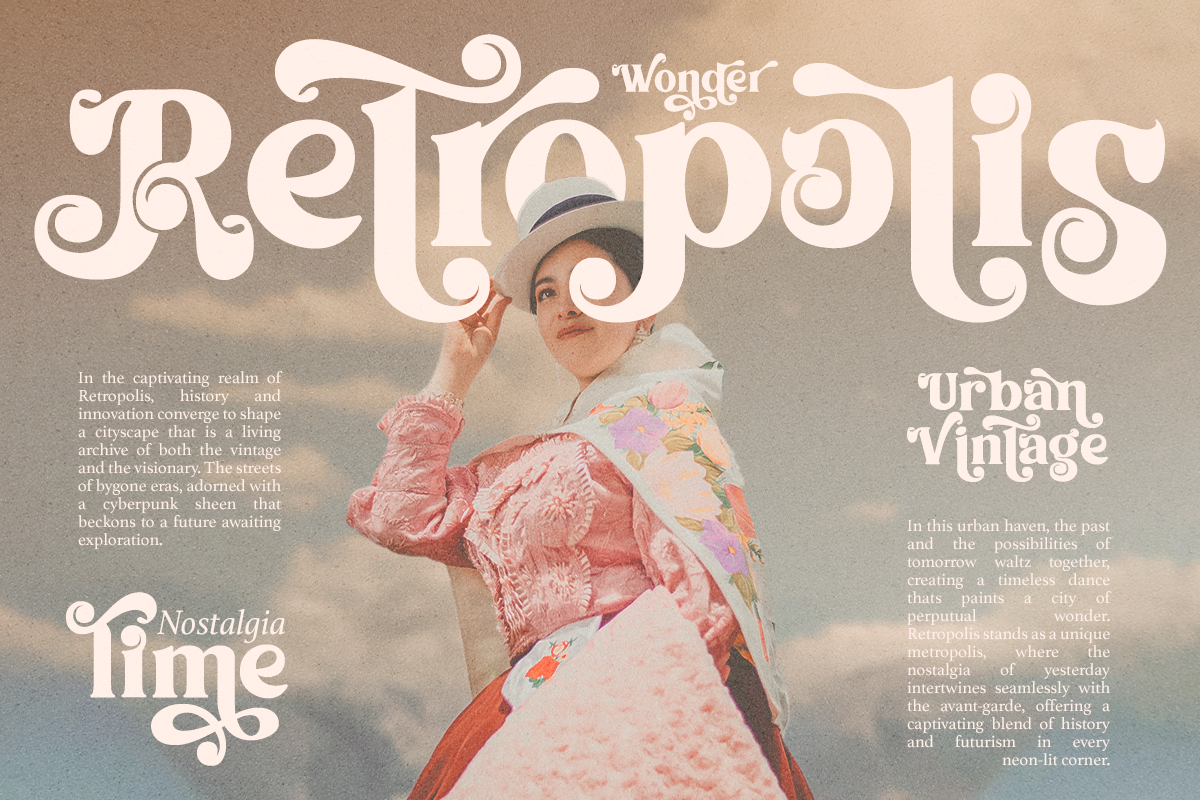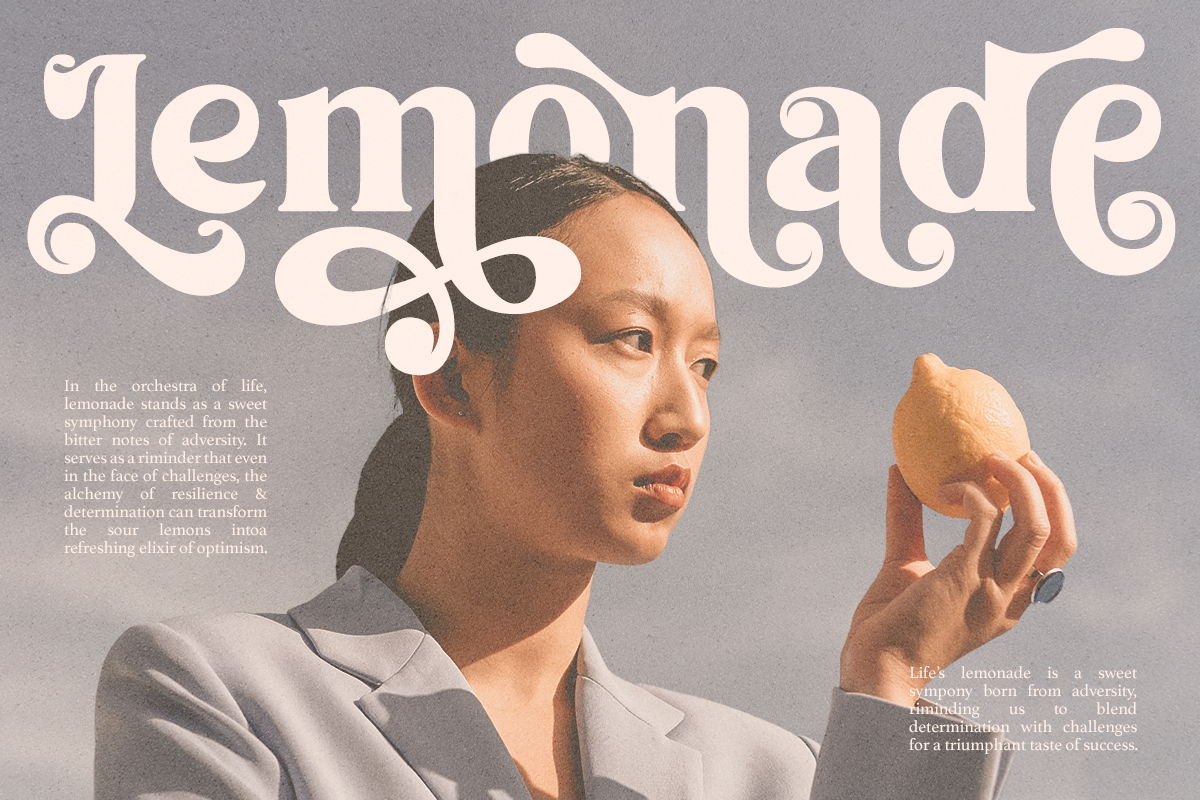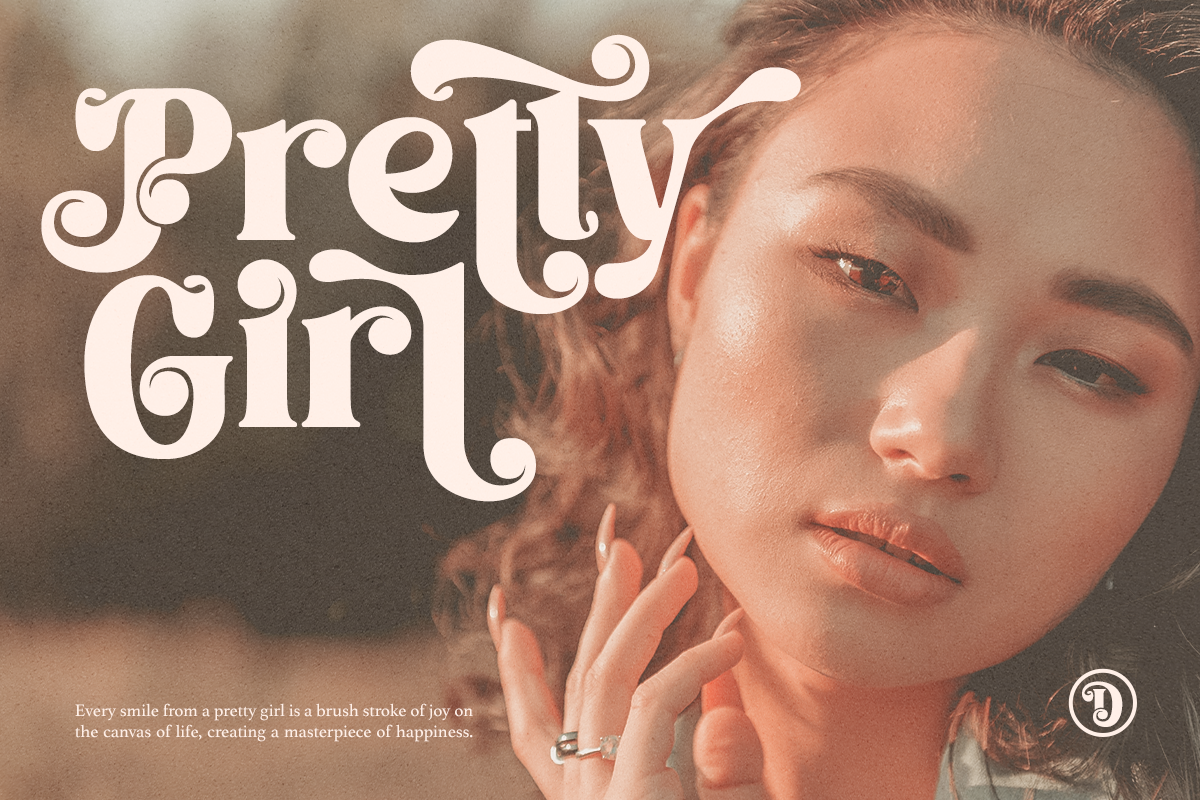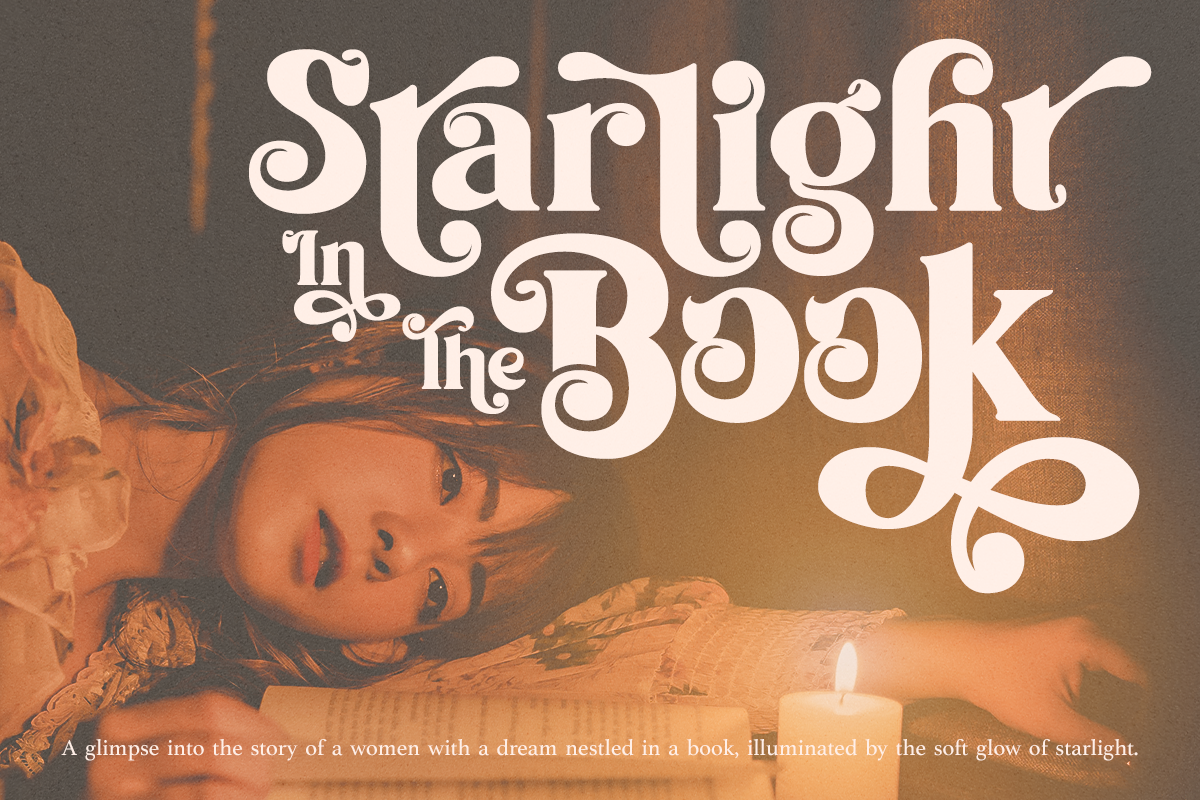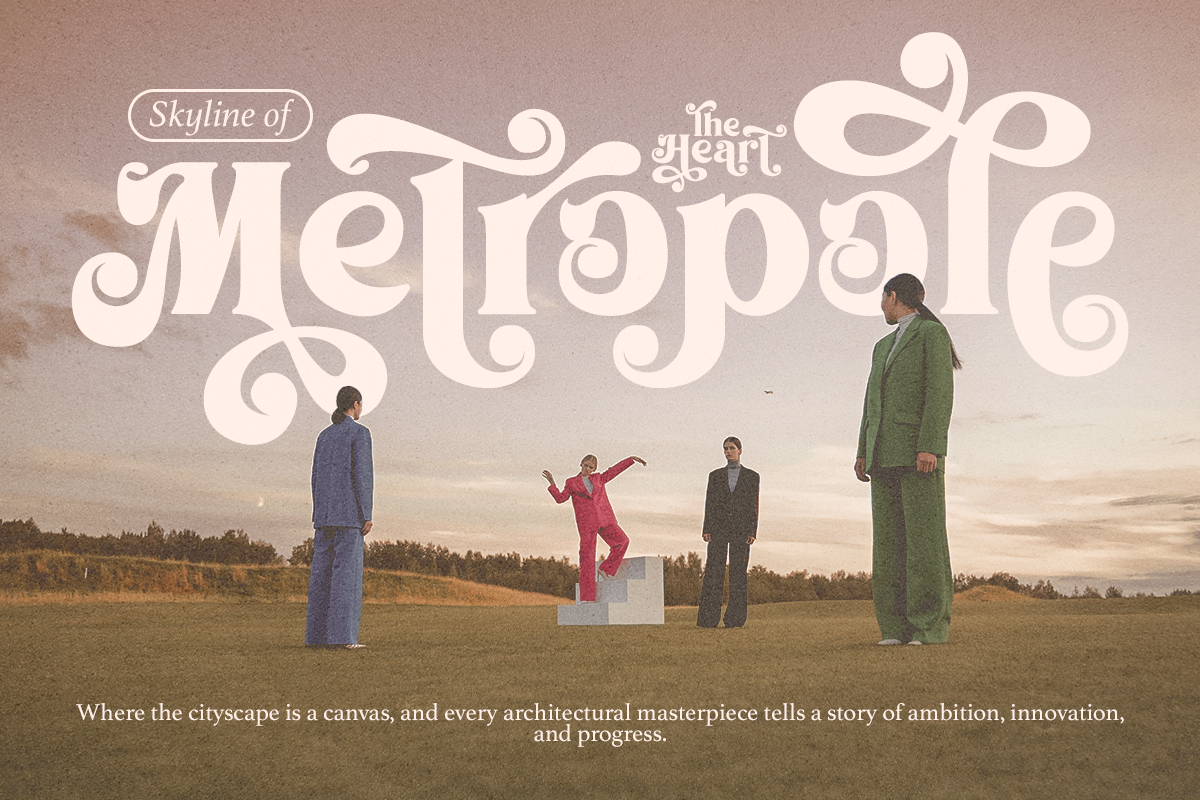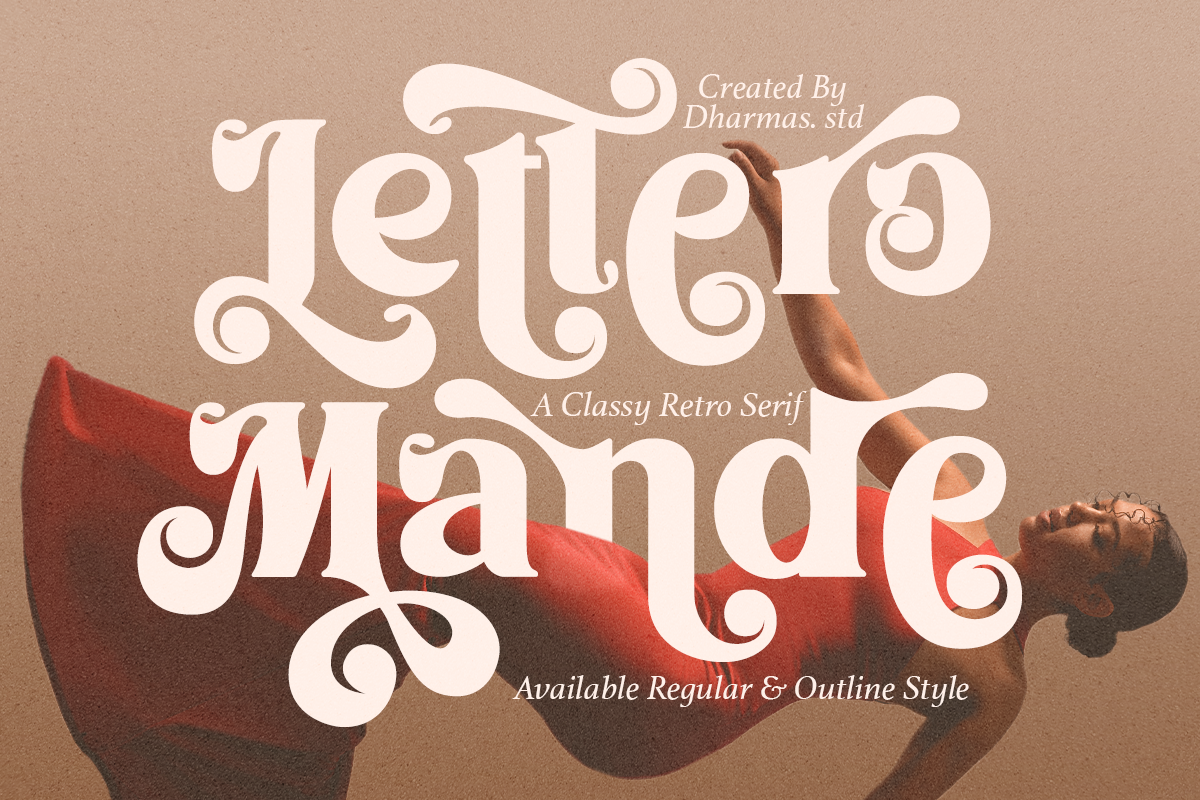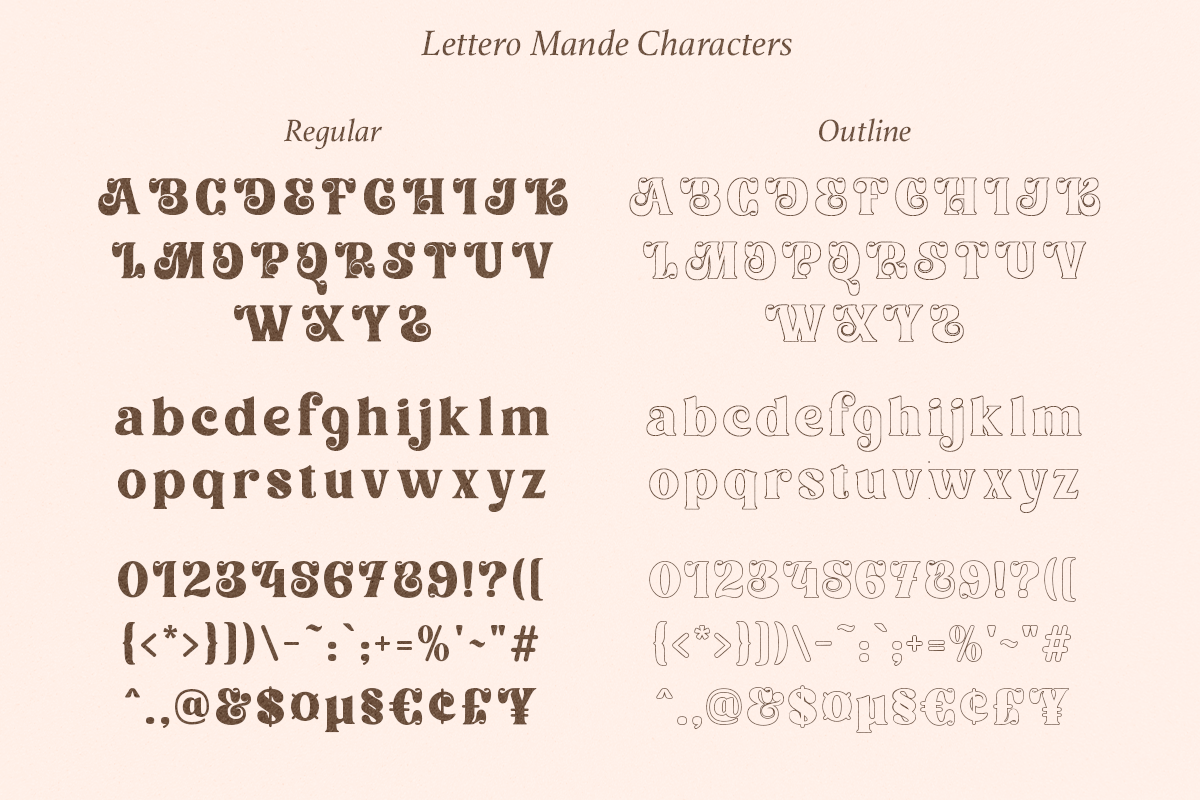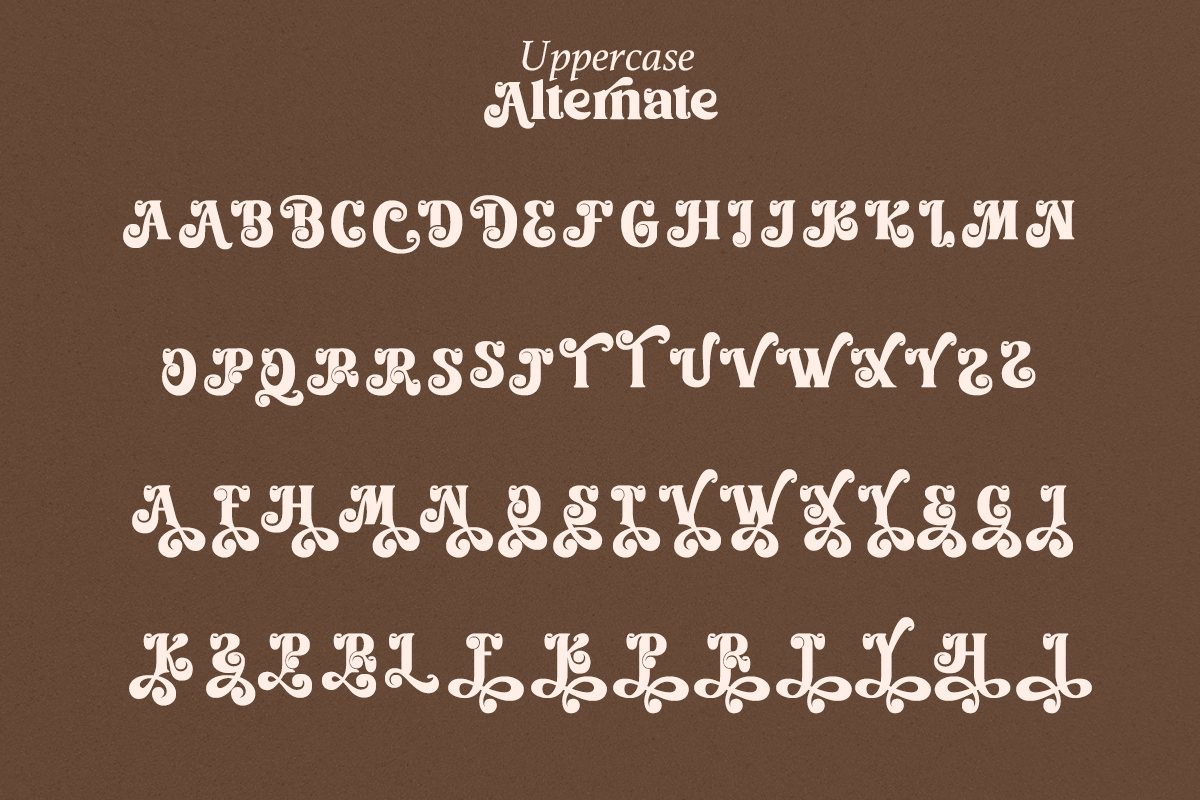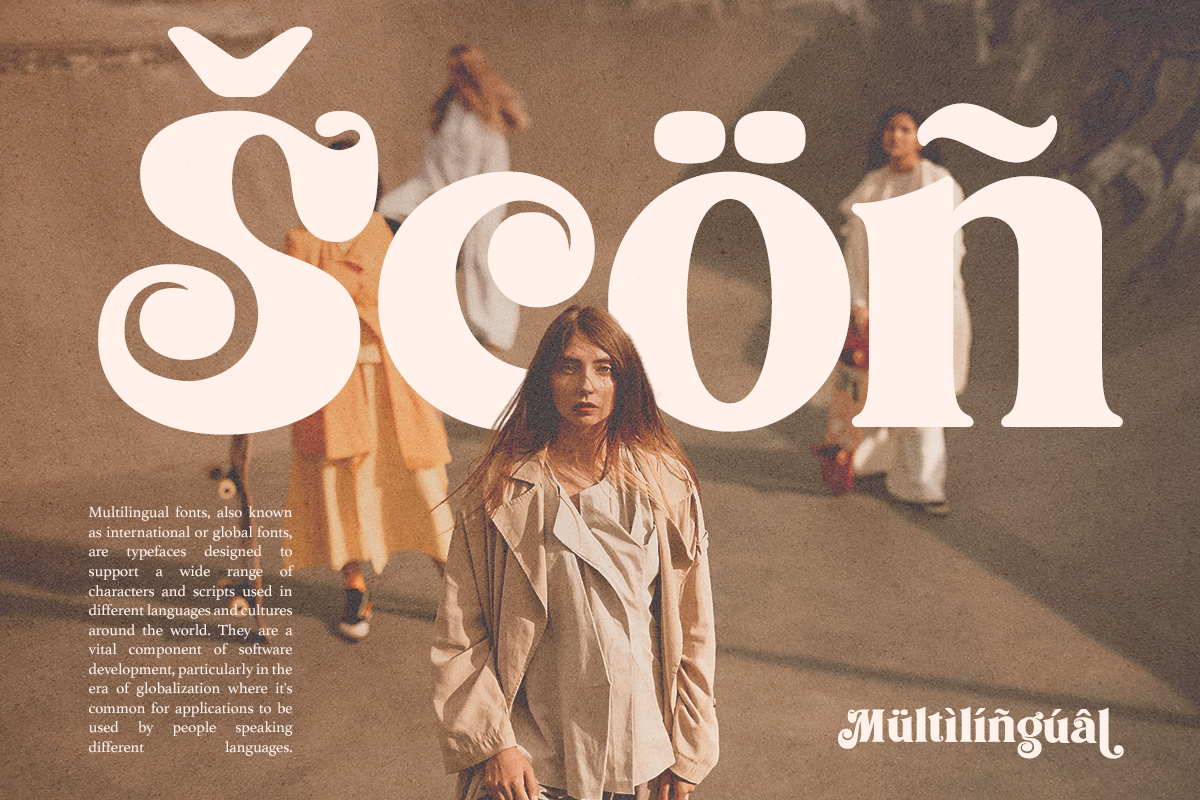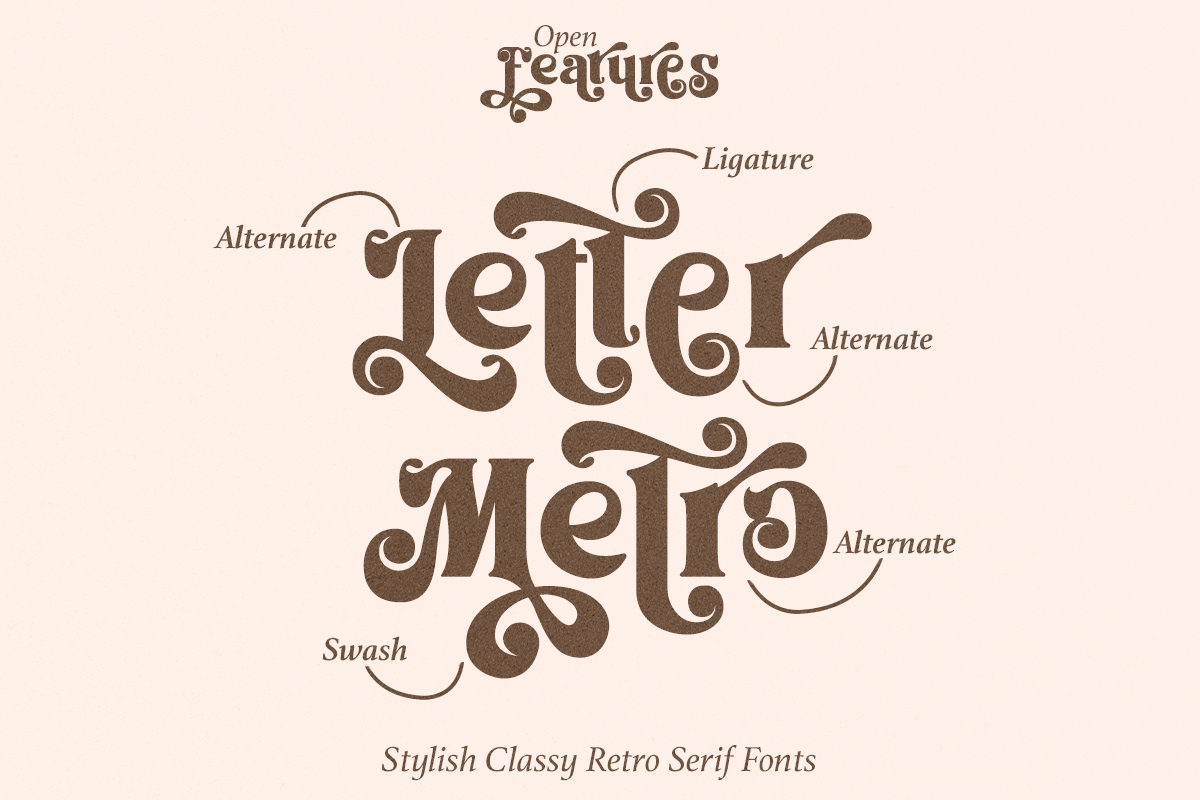
Lettero Mande - Playful Retro Font
Introducing Lettero Mande – A playfully nostalgic incredible vintage aesthetic typeface!
Lettero Mande font has more than 150+ alternative characters and ligatures. This versatile and playful display font is very suitable as a logo, title, branding, posters, t-shirts, etc.
- 150+ Special Alternates and Ligatures